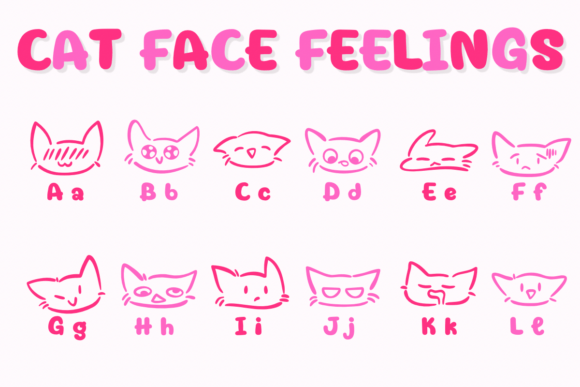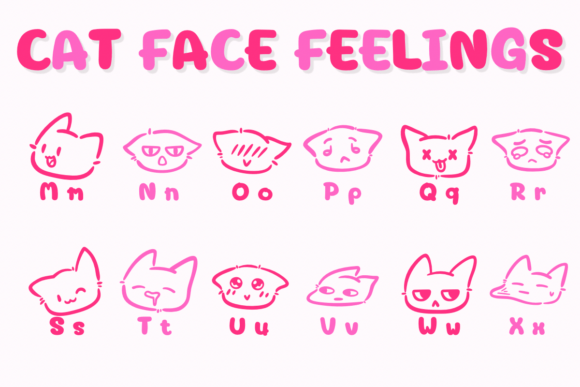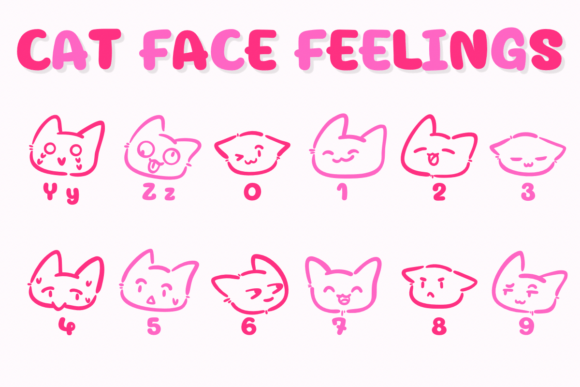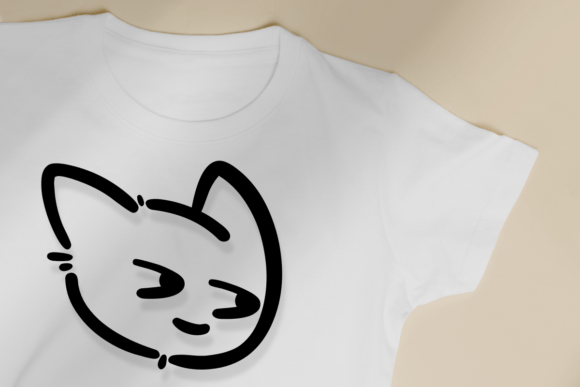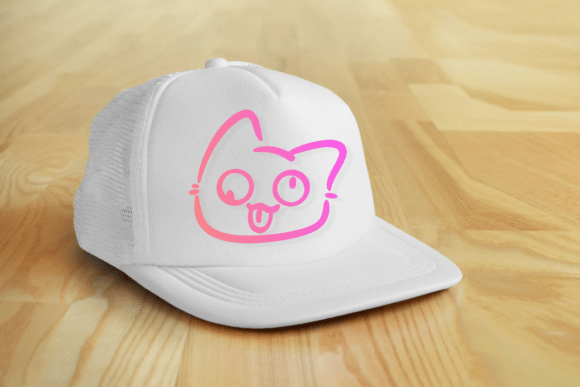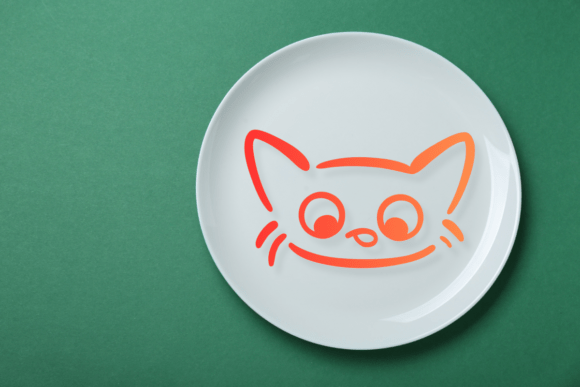
Crafting with Cuteness: Unlocking the Power of Cat Face Feelings Font
Have you ever stared at a blank page, searching for the perfect way to express a feeling? Maybe it’s a cheerful message for a friend, a whimsical title for a children’s book, or a playful caption for a social media post. Whatever your creative project, there’s one thing that’s sure to bring a smile to your face: the adorable Cat Face Feelings Font.
This charming dingbats font is designed to add a touch of whimsy to your work. With its cute cat faces and expressive emoticons, Cat Face Feelings Font is the perfect tool for designers looking to bring a little extra joy to their projects. Whether you’re a seasoned pro or just starting out, this font is sure to inspire creativity and bring a smile to your face.
Cat Face Feelings Font Key Features
- Font Family: Cat Face Feelings, a unique and playful font designed to convey emotions through cat faces.
- Unique Characteristics: The font features a range of cat face emoticons, allowing designers to convey emotions and add a touch of whimsy to their designs.
Cat Face Feelings Font Review
I recently had the chance to work with the Cat Face Feelings Font, and I must say it’s a unique addition to any design project. ✨ The font’s playful, whimsical nature is perfect for capturing a lighthearted, emotive tone in your work. The cat faces themselves are well-designed, with a range of emotions to choose from.
- ✨ Wide range of cat face emojis to convey different emotions
- ✨ Playful, cutesy aesthetic that’s perfect for children’s products or social media
- ✨ Includes a range of cat breeds, adding to the font’s diversity
However, there are some limitations to consider. ⚠️ The font is quite limited in its uses, as it’s primarily suited for conveying emotions in a playful way. It may not be the best choice for serious or formal projects. Additionally, the font’s size and legibility can be an issue at smaller scales.
Overall, I think the Cat Face Feelings Font is a great choice for designers looking to add some personality to their work. While it may not be suitable for every project, it’s a fun and engaging option that’s sure to bring a smile to your audience’s faces.
Use the Cat Face Feelings Font to add a touch of whimsy and fun to your designs.
Combine the font with other design elements, such as images or graphics, to create engaging and eye-catching designs.
The Cat Face Feelings Font is perfect for:
Social media posts and graphics
Posters and flyers
Presentations and documents
Logos and branding materials